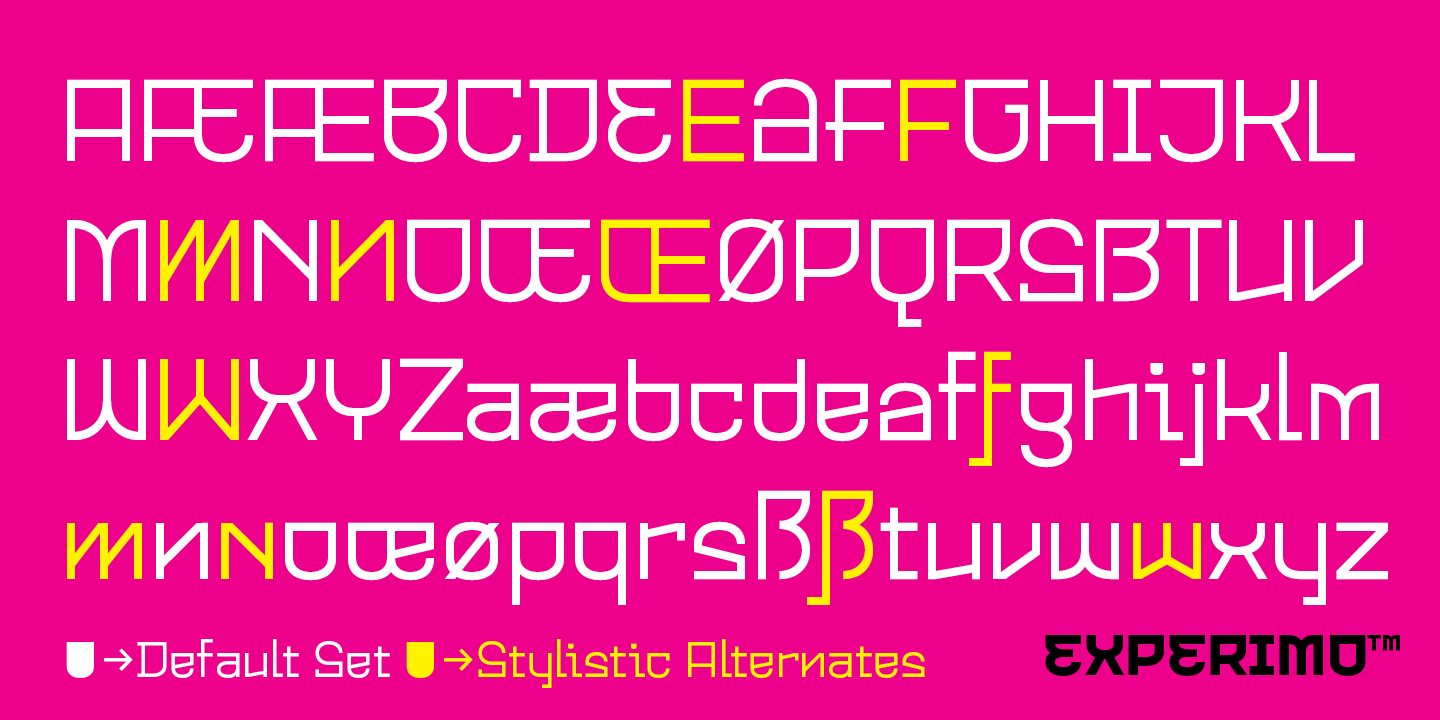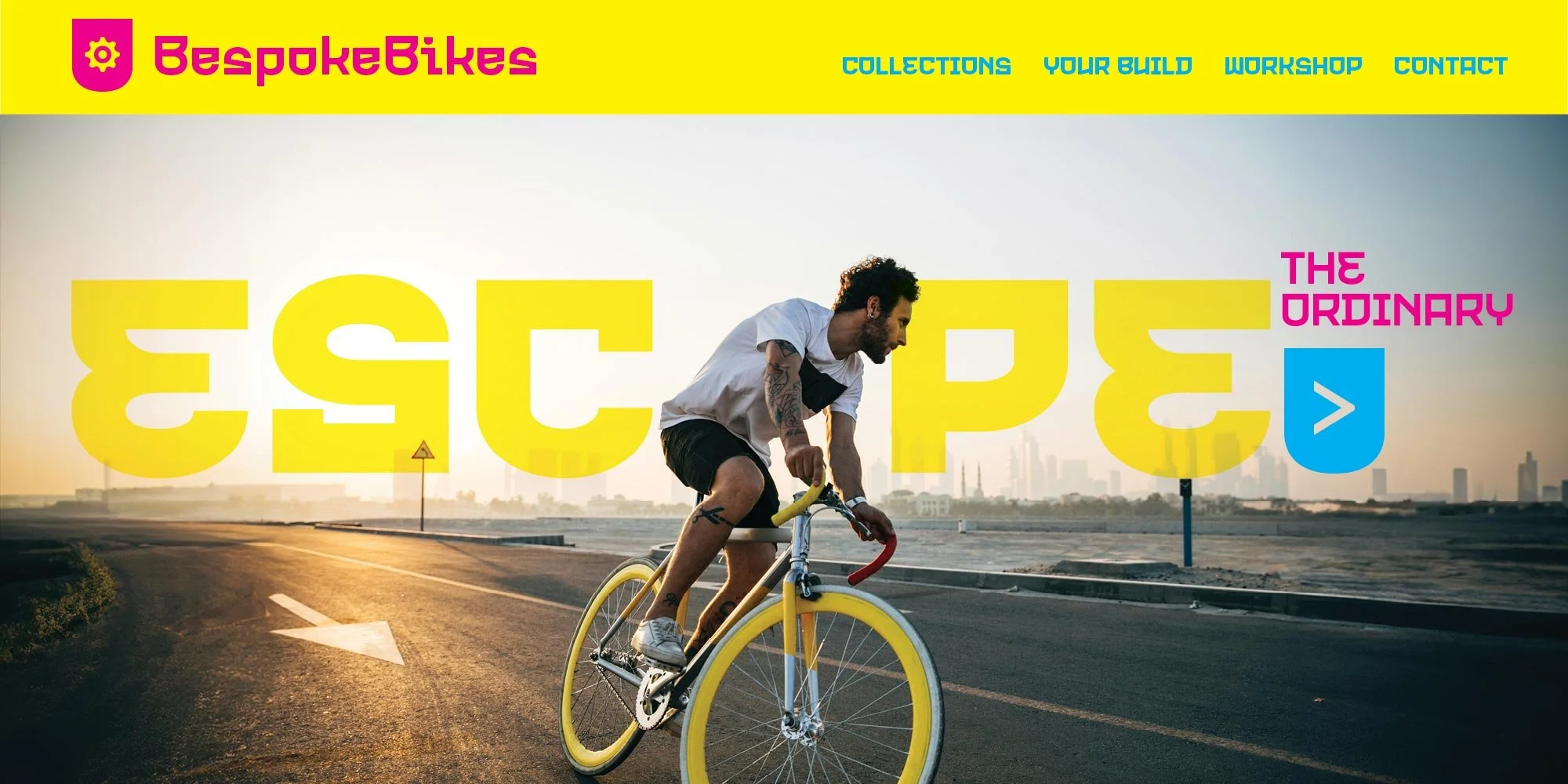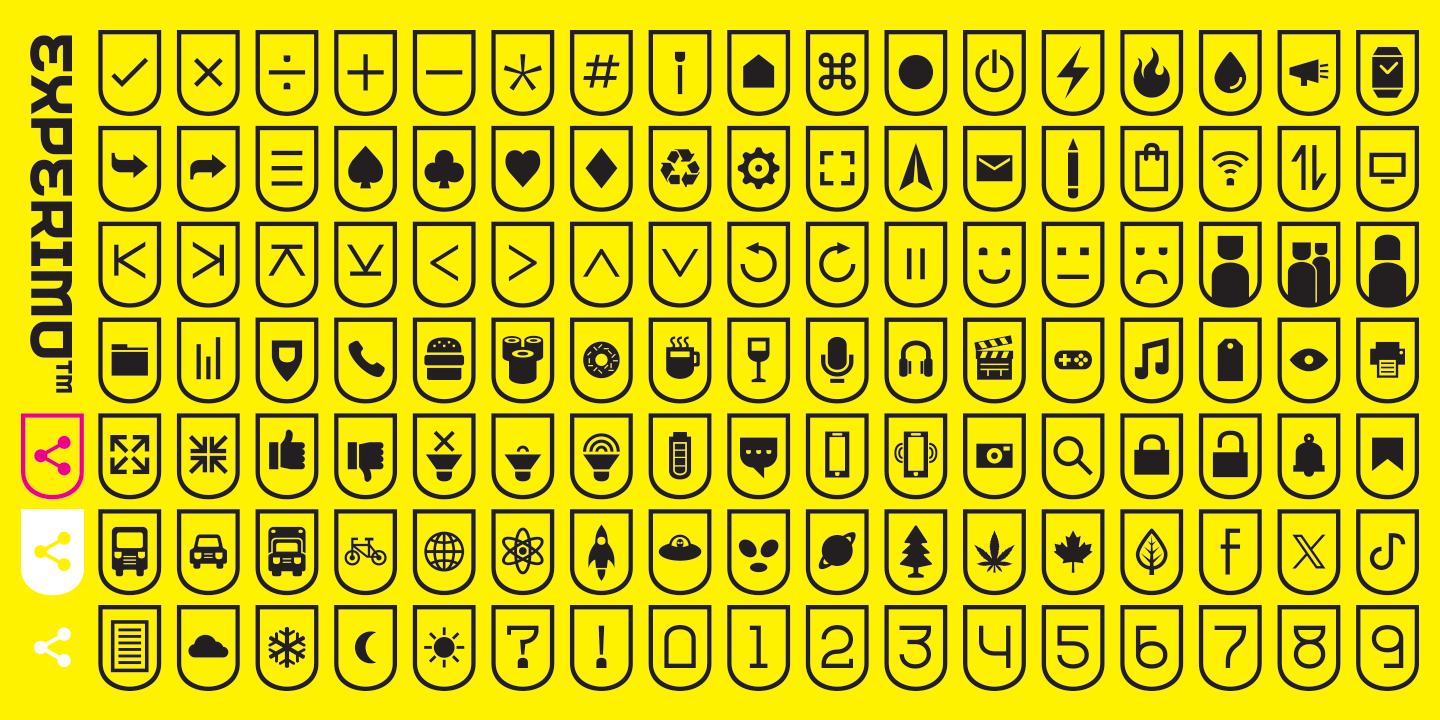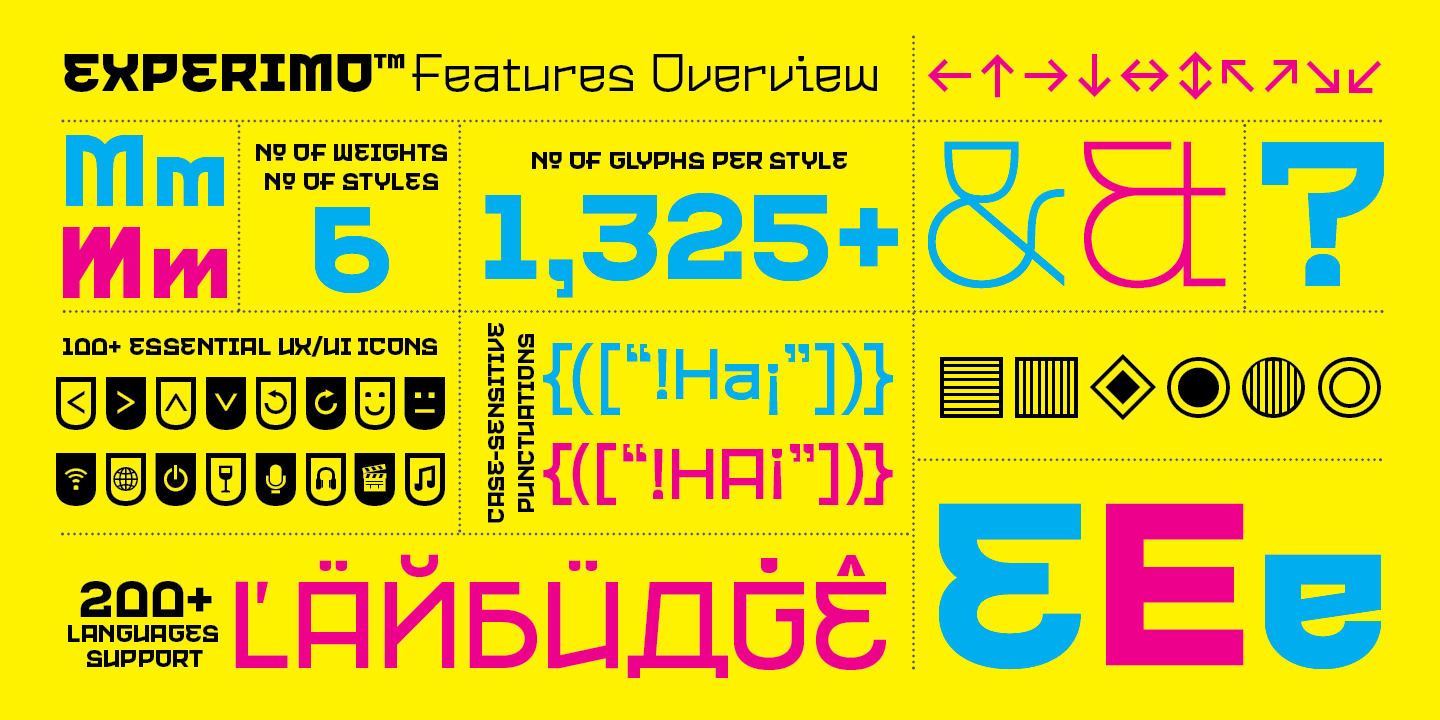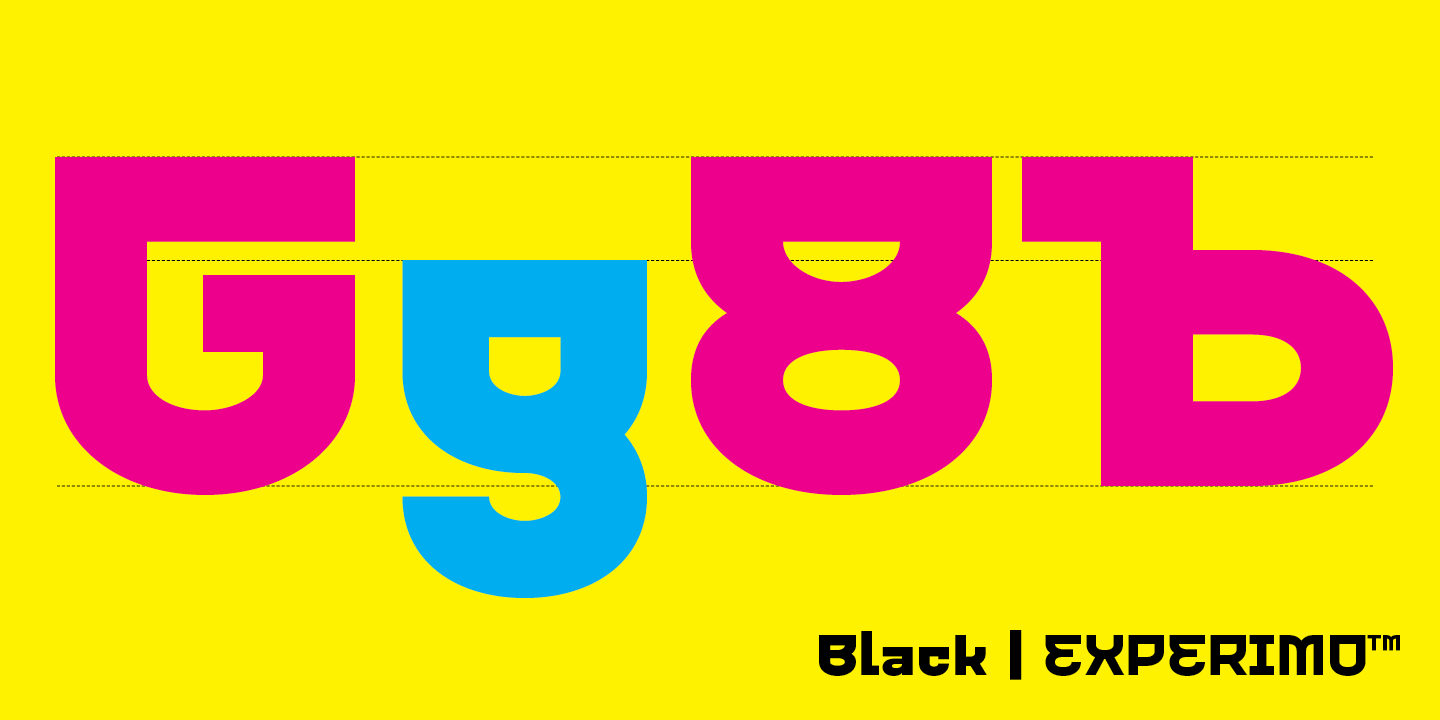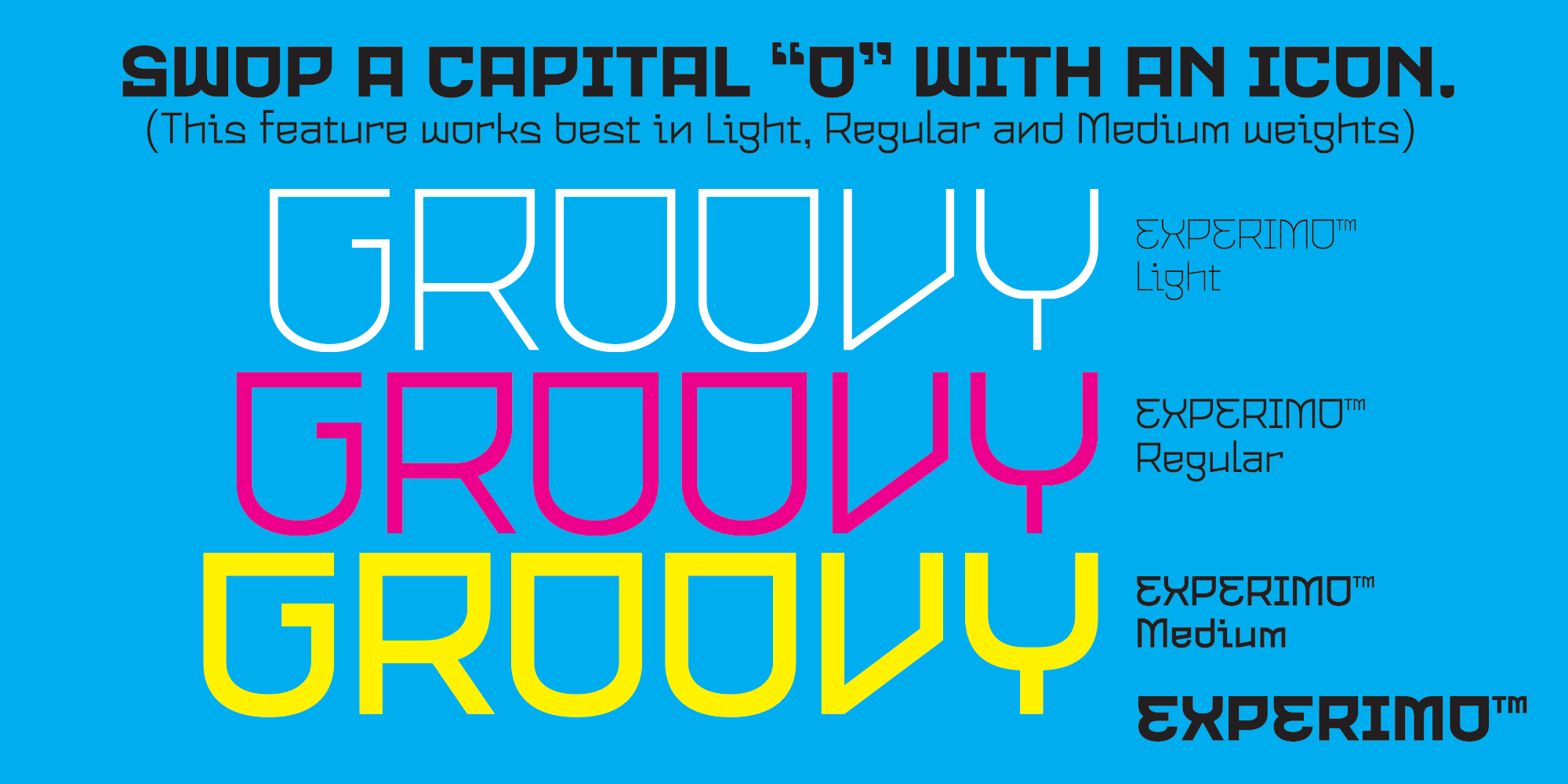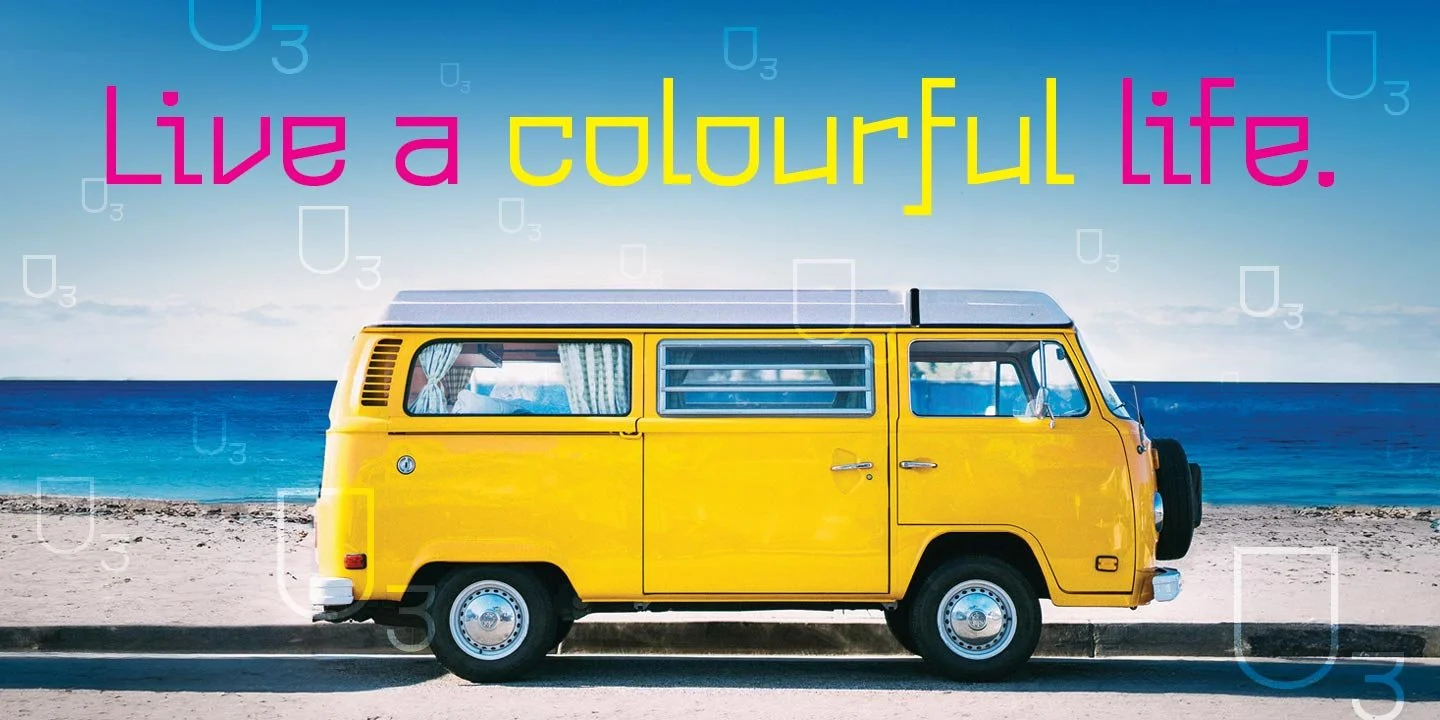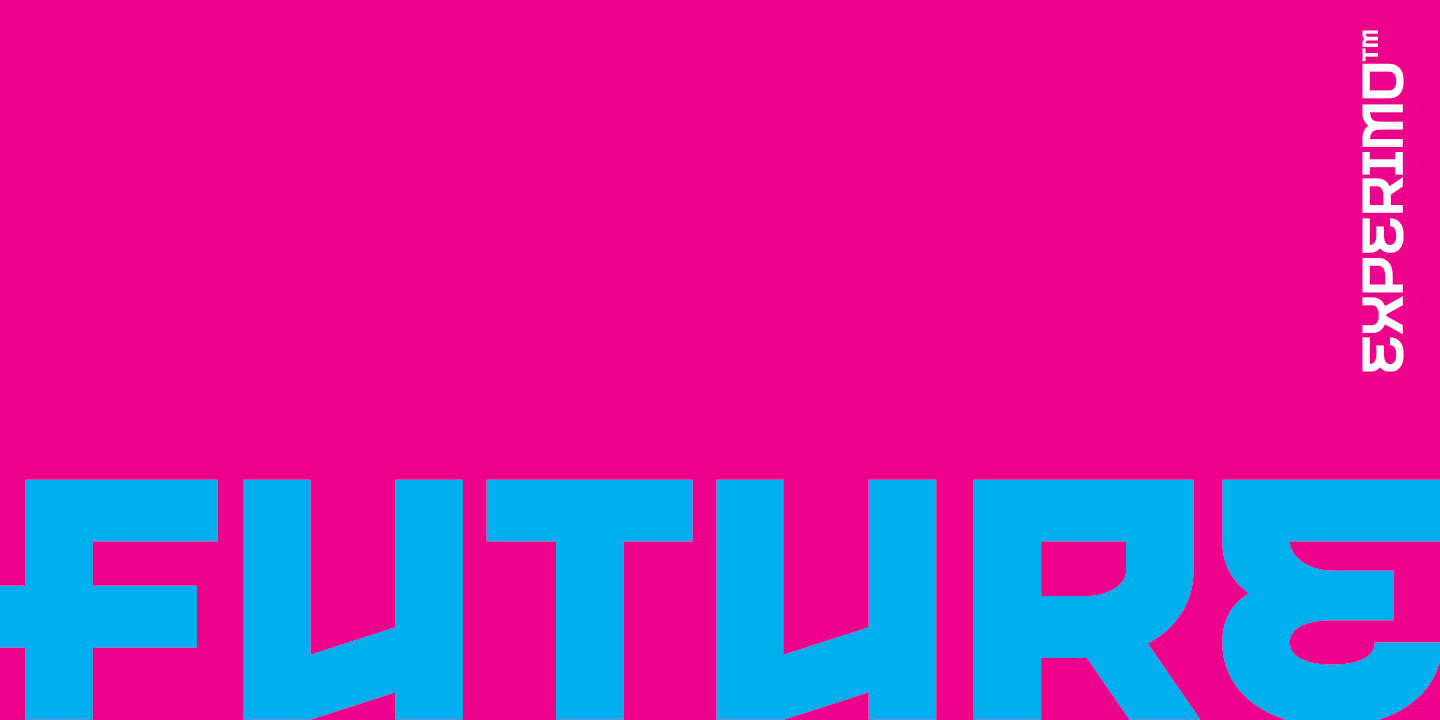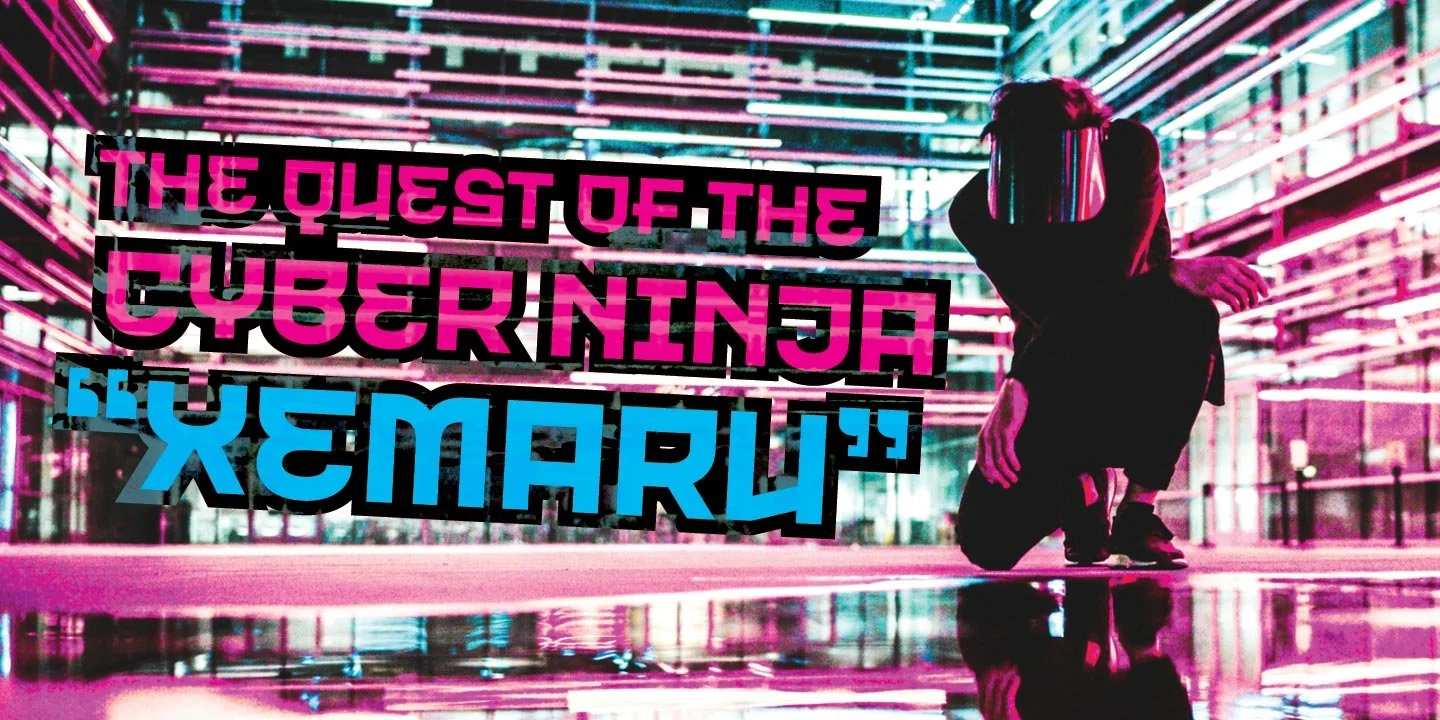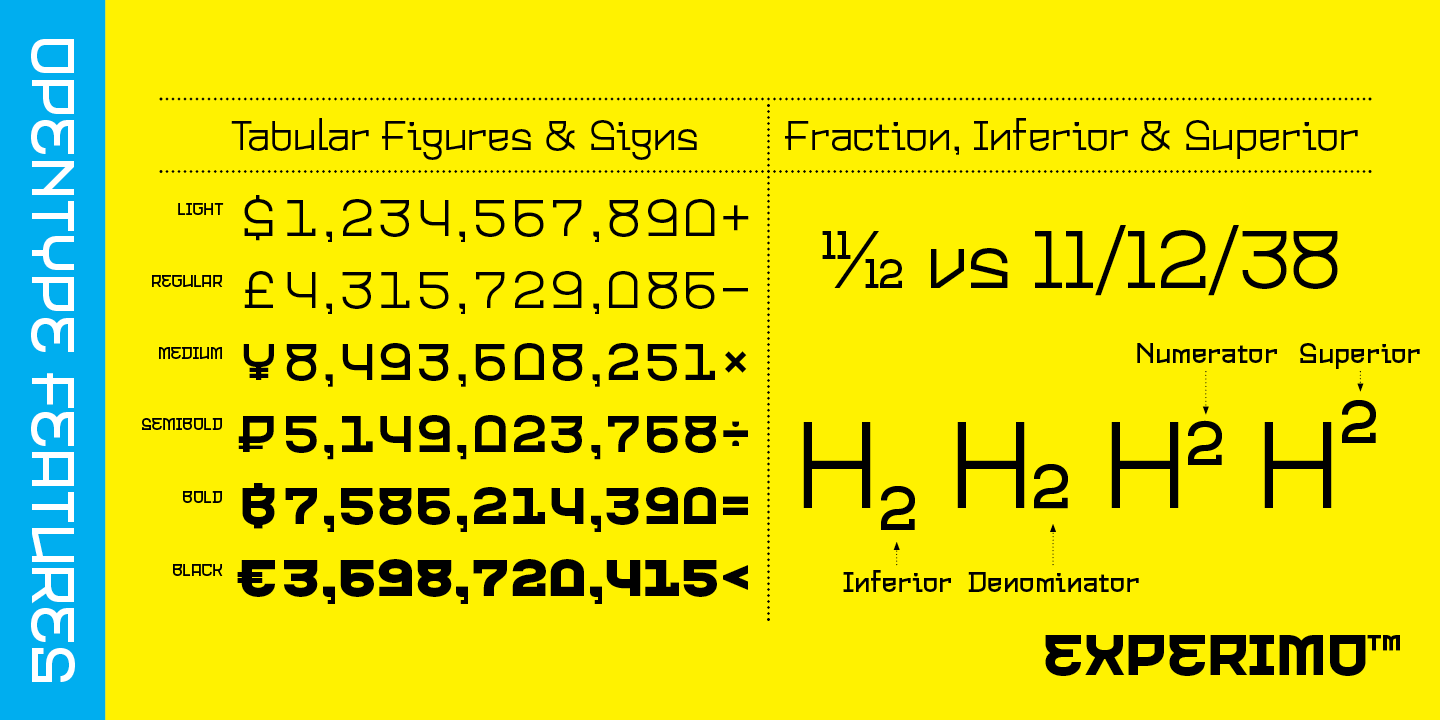
Experimo Display Sans Serif Font Features & Specimens
Discover Experimo™ Font Features
Animated cover image for Experimo, the experimental display font, showing eccentric Latin and Cyrillic character sets.
Experimo™: The Experimental Typeface of Many Moods
Experimo™ is an unconventional display sans serif font family that celebrates the juxtaposed contrast between round and rectangular shapes. We believe that this bold approach to design is what makes a font truly memorable.
Animated glyph specimen of Experimo, showing the unique round and rectangular juxtaposed forms of the G, g, 8, and b characters across six weights.
A Versatile Typeface Praised by a Design Legend
Experimo™ is more than just a quirky typeface. It was recently featured as "Font of the Month" by the legendary Steven Heller, who concluded that "Experimo was by far the most eccentric of the fonts available." He praised the font's unique ability to switch between "different moods and expressions while remaining within the same close-knit type family," and he specifically noted its unique features:
• A slew of alternative numbers and letters in caps and lower case.
• A unique X that was unlike any other he had seen.
• Sculptural variations for the E (upper and lower case) and the O, which resembles a covered U.
Experimo™ is a powerful toolkit for your creative projects. It is available in 6 weights and 12 styles, with over 1,325 glyphs each, and supports most Latin-based and Cyrillic-based languages.
Technical features overview of the Experimo font: 6 weights, 1,325+ glyphs per style, 100+ essential UX/UI icons, 200+ language support, and OpenType case-sensitive punctuations.
Loaded with OpenType Features for a Simplified Workflow
This typeface is a pictographic bonanza and is loaded with OpenType features to enhance your user experience and simplify your workflow. Experimo™ Display Sans Serif includes:
• An extensive set of stylistic alternatives.
• Case-sensitive marks, punctuations, and mathematical symbols.
• Over 100 essential UX/UI icons, each in three design options.
• O substitutions: Dozens of iconic options that can be used as substitutions for the letter "O". This feature work best in the Light, Regular, and Medium weights.
If you need a distinct and experimental typeface for packaging, infographics, logos, print, or movie titles, consider trying Experimo™ today!
Type specimen of Experimo's stylistic alternates in the Latin alphabet, including specific characters like German ß and Nordic Ø, demonstrating the extensive language support.
Standard Cyrillic alphabet specimen for Experimo, showing full language support and stylistic alternates for key modern Cyrillic-based characters.
Animated demonstration of Experimo's 100+ essential UX/UI icons, highlighting the three distinct styles available for use in user interfaces.
Experimo™ offers over 100 essential UX/UI icons, each in three styles to enhance user interfaces and digital experiences.
Animated demonstration of the unique O glyph icon swap feature, showing an icon replacing the O in GROOVY to create custom typography.
You can swap a capital "O" with any of the 100+ icons in Experimo™ to enhance your designs. This works best with Experimo™ Light, Regular, and Medium.
Experimo OpenType features: tabular figures, currency, and math signs. Demonstrates fractions, date recognition, and superior/inferior numbers for data display.
Experimo OpenType feature demonstrating automatic vertical alignment of marks (TM, R, SM, Copyright) at both cap-height and x-height, eliminating manual baseline shift.
Discover Experimo™ Type Specimens
Check out the live specimens below to see the Experimo family in action. For an in-depth look at all six weights and OpenType features—including Cyrillic support and the 100+ UX/UI icons—download the Experimo Type Specimens PDF. Inside, you’ll find a detailed visual overview of the font’s stylistic alternates and eccentric design elements for your next digital & print projects.
Hero type specimen poster design for Experimo, a futuristic display font, featuring the title "THE FIREWALL OF HADES." Featured by Steven Heller.
Futuristic cyberpunk banner design specimen featuring Experimo, the experimental display font, with the title "THE QUEST OF THE CYBER NINJA 'XEMARU'."
Band gig poster specimen for REDIKA, showing Experimo display font in a dark, neon style for music and event promotion design.
Animated Cyrillic pangram specimen for Experimo, demonstrating the font's 6 weights (Light through Black) and full language support for Eastern European design.
Multilingual type specimen demonstrating Experimo's support for 200+ languages, showing text in Spanish, English, and German with Latin Extended glyphs.
Animated word cloud specimen illustrating Experimo's wide range of looks, from futuristic technology to bright, modern digital branding.